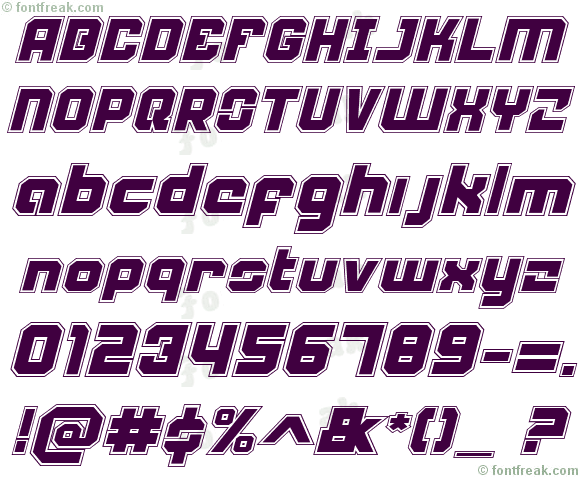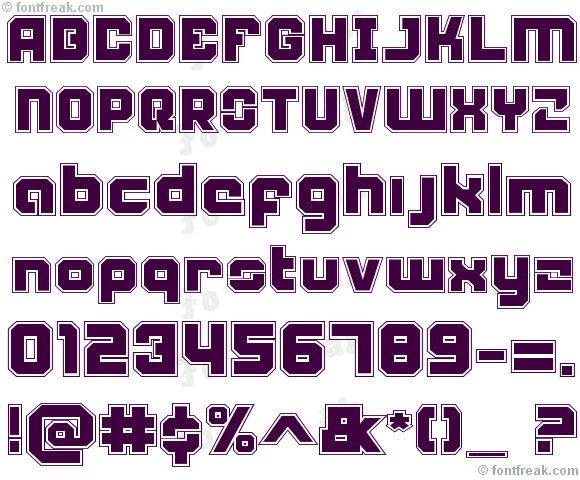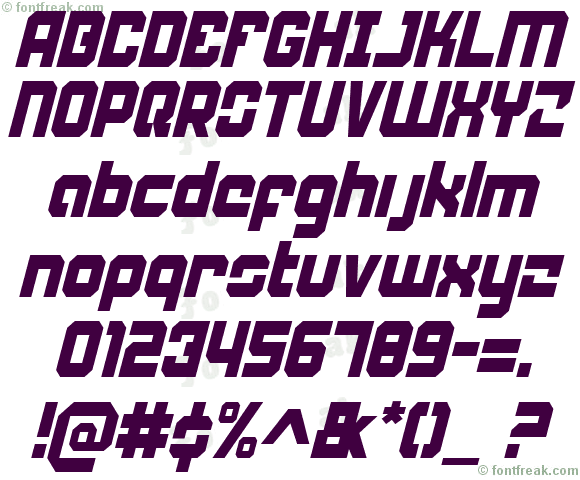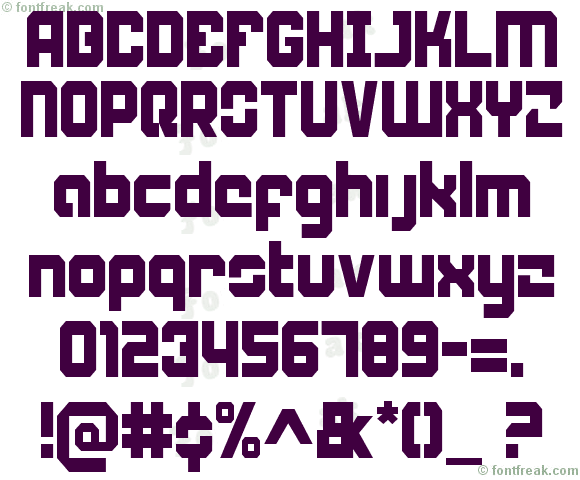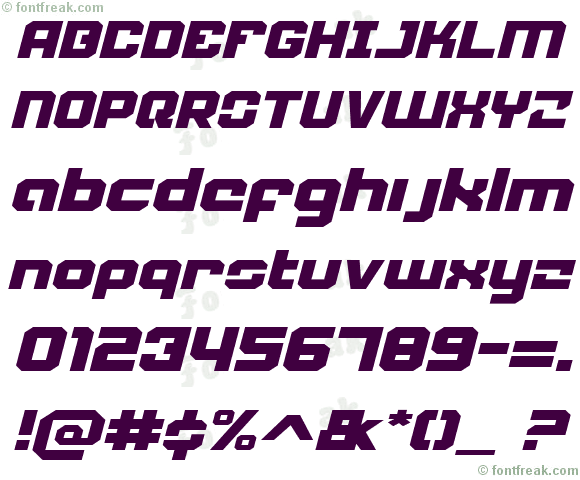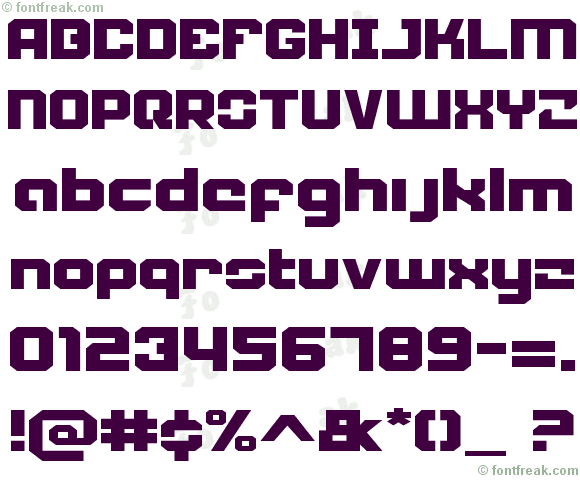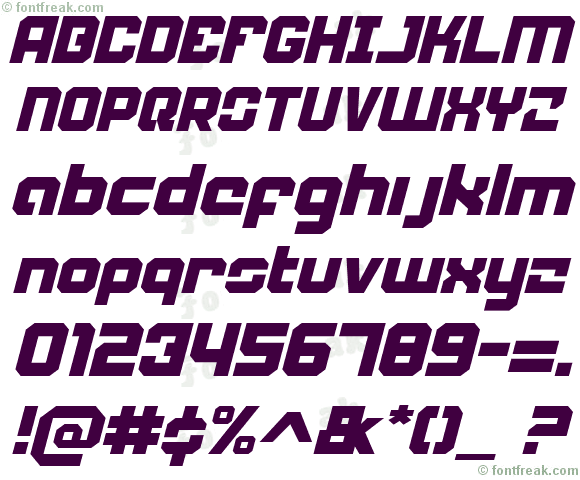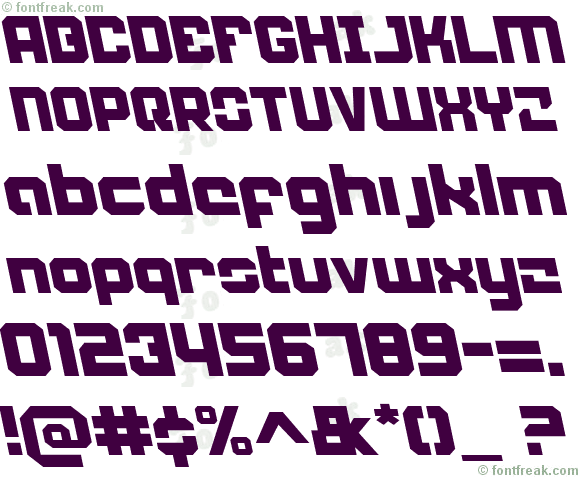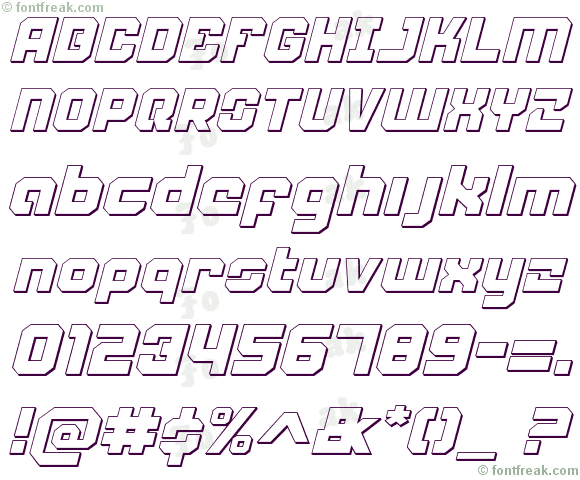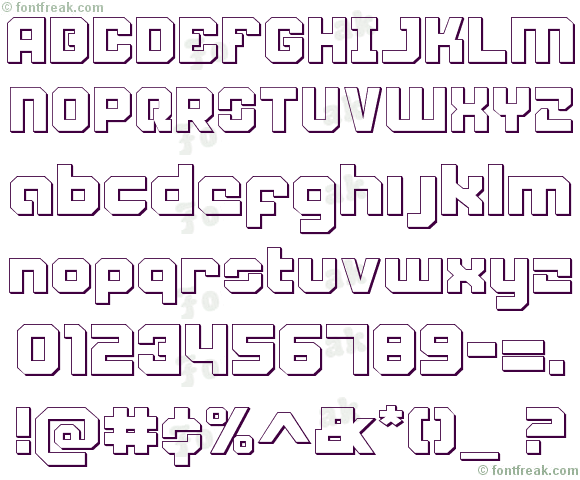
About Weaponeer
Weaponeer by Iconian Fonts is a striking display font that falls into the condensed, italic category, making it a unique choice for various design projects. Released in 2008 as freeware, the Weaponeer font showcases bold, angular letterforms that are characterized by a strong stroke weight and minimal contrast, resulting in a powerful and assertive visual presence. The spacing is tight, enhancing its compactness and making it ideal for impactful headlines and attention-grabbing titles. The font features distinct decorative elements, such as sharp edges and a slightly aggressive aesthetic, which contribute to its overall unique appearance.
This font is particularly well-suited for use in dynamic contexts such as movie posters, where it can convey action and excitement. It also works excellently for video game branding, giving a modern and edgy vibe that resonates with gamers. Additionally, Weaponeer can elevate the design of concert flyers, adding a sense of energy and urgency, while also making a memorable impression on restaurant menus that lean towards a bold, contemporary style. The target audience for this font includes graphic designers looking to create eye-catching designs, small business owners aiming for strong branding, and content creators who want to stand out in their promotional materials.
What sets the Weaponeer font apart is its ability to fuse functionality with an arresting visual style. Its bold, condensed design captures attention and conveys a sense of strength, making it an excellent choice for any project that requires a touch of modern flair. For those interested, the Weaponeer font free download opens up exciting possibilities for creative applications, ensuring that your designs make a lasting impact.